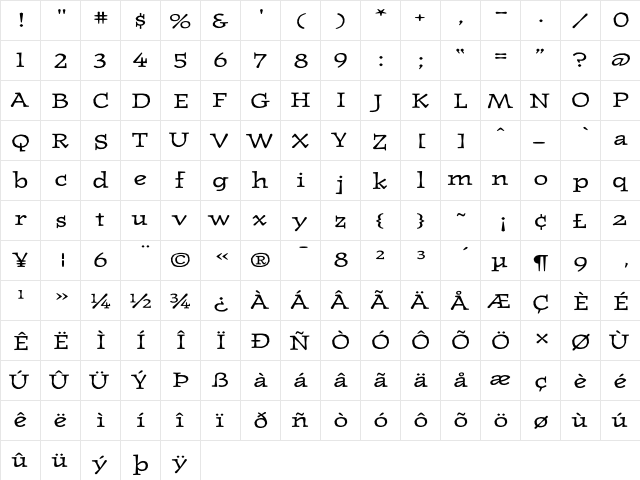
JournalUltra Regular
Design Context for JournalUltra Typeface
JournalUltra is a composed and adaptable typeface that performs quietly and consistently across a wide range of design contexts.
Pro Tip: Pair JournalUltra with a font of contrasting weight or personality to build a more expressive typographic hierarchy.